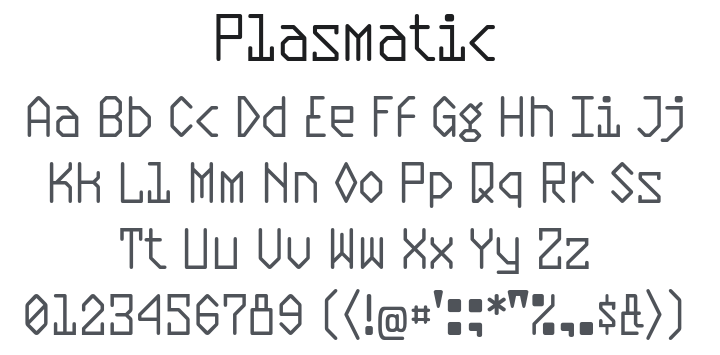
Plasmatic Font
About Plasmatic
Plasmatic is a bold, high-tech OCR-inspired display typeface — a futuristic extrapolation of the optical character recognition fonts of the 1960s, pushing their machine-readable geometry to a sleek, electronic extreme. Its clean, angular letterforms carry cold, clinical authority with a subtle retro-digital warmth. Perfect for sci-fi interfaces, tech branding, laboratory-themed designs, cyberpunk posters, and any headline needing precise, electronic sophistication.